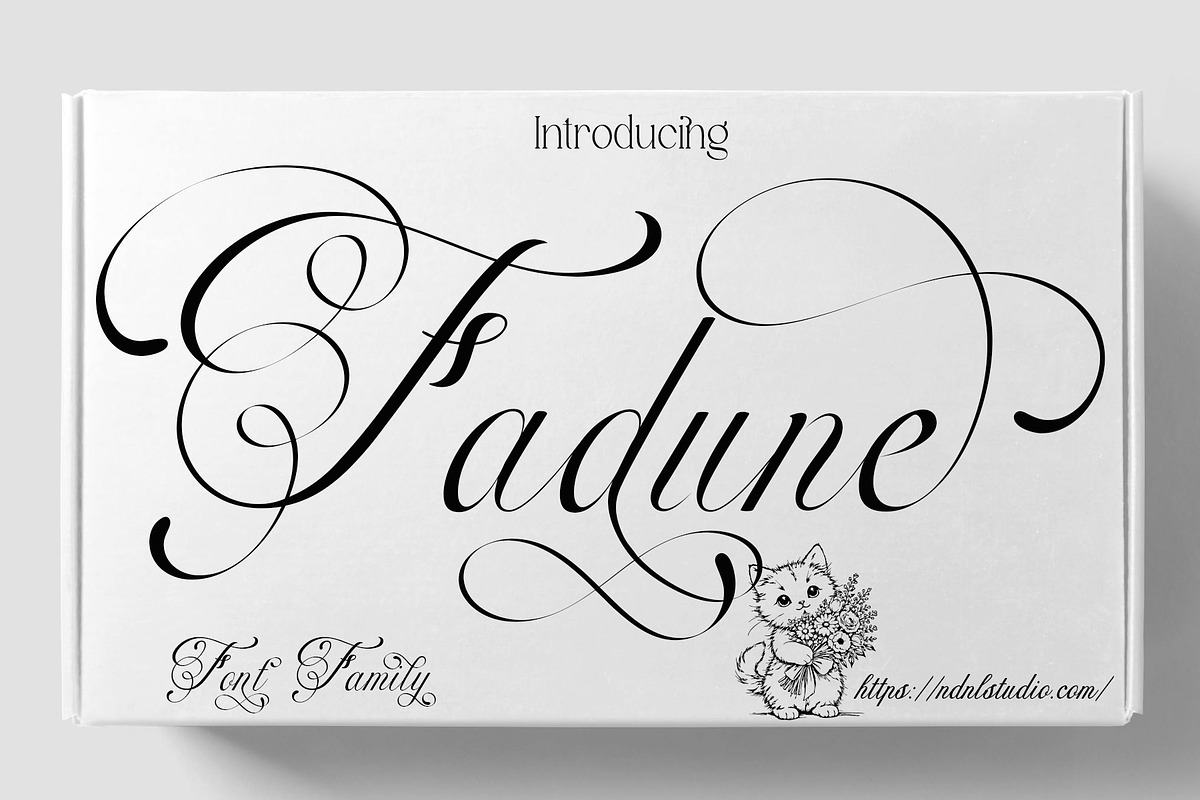
Fadune – Elegant Script Font
Fadune – Elegant Script Font is a flexible and reliable font created to fit multiple design needs, from branding and packaging to social media and editorial layouts. Fadune is an elegant script typeface inspired by classic and romantic aesthetics. With its flowing strokes and graceful flourishes, the font delivers a refined, sophisticated look while maintaining a soft and expressive character.
Fadune is ideal for high-end and artistic projects such as wedding invitations, branding, logos, packaging, posters, fashion headlines, beauty designs, and decorative layouts with a vintage or romantic style. This typeface brings timeless charm, delicacy, and elegance to every design.